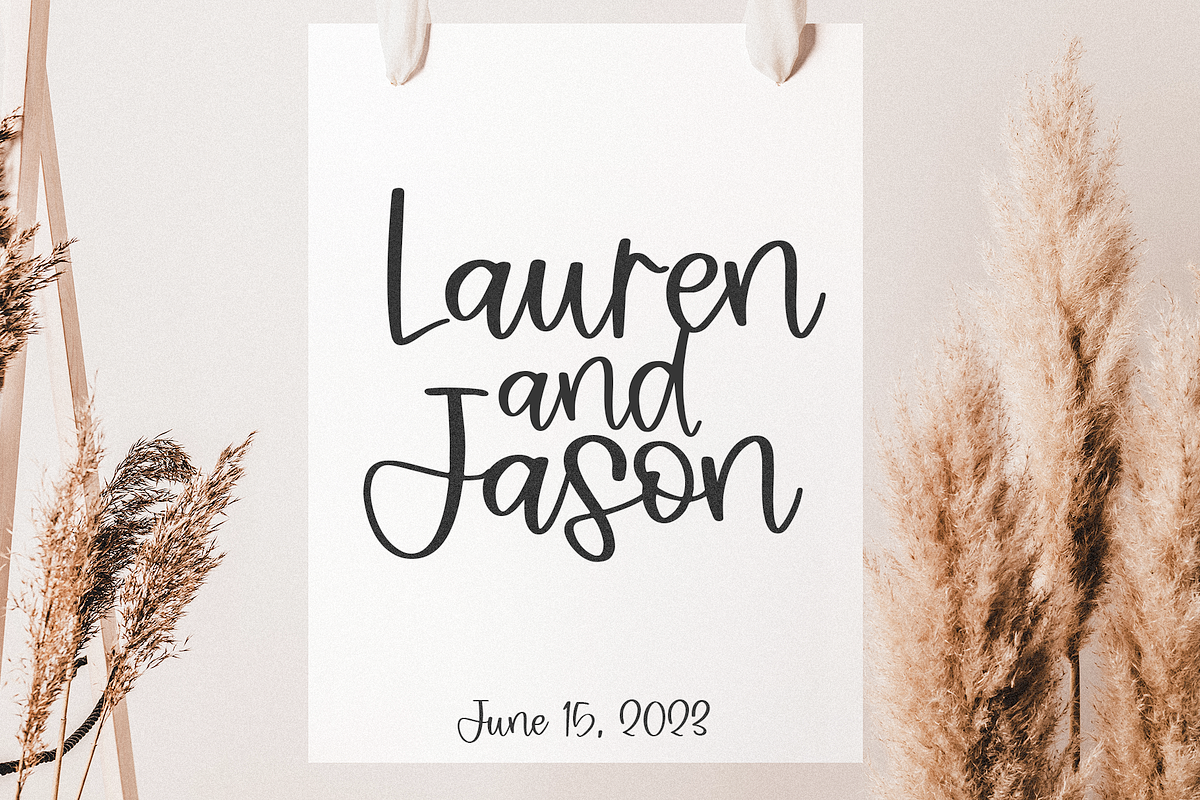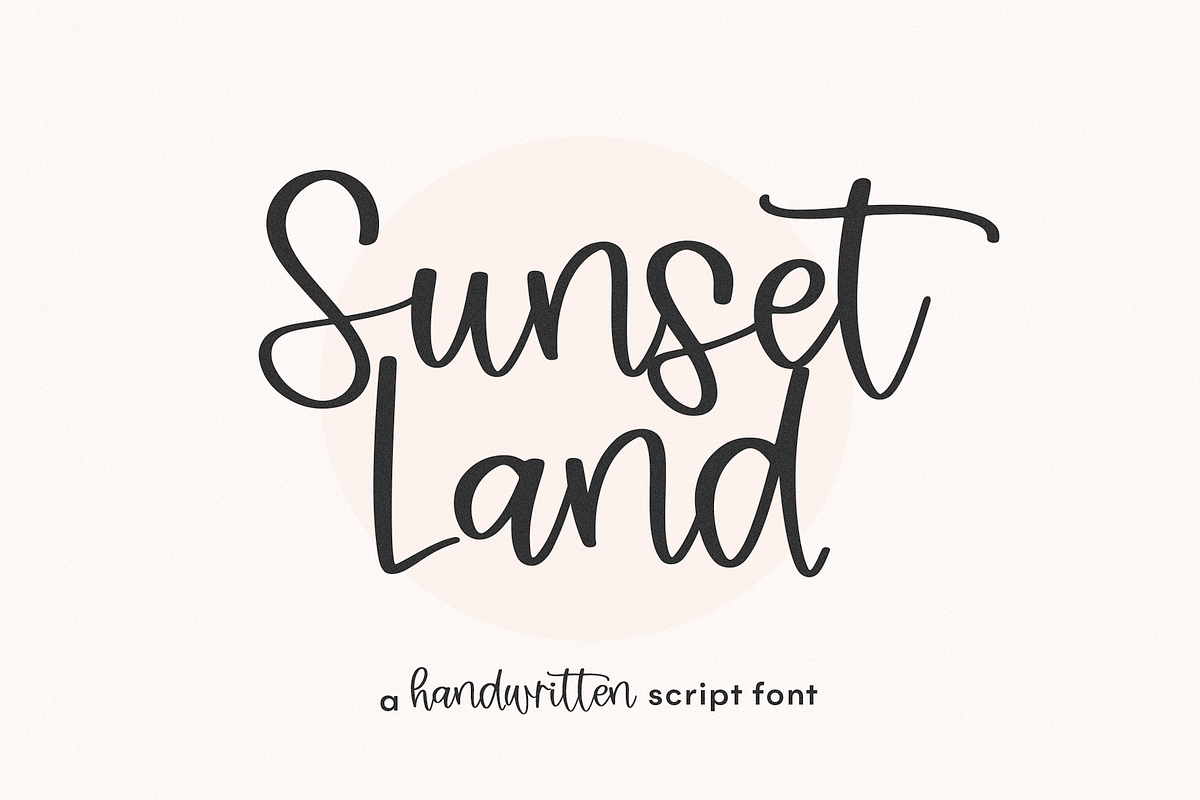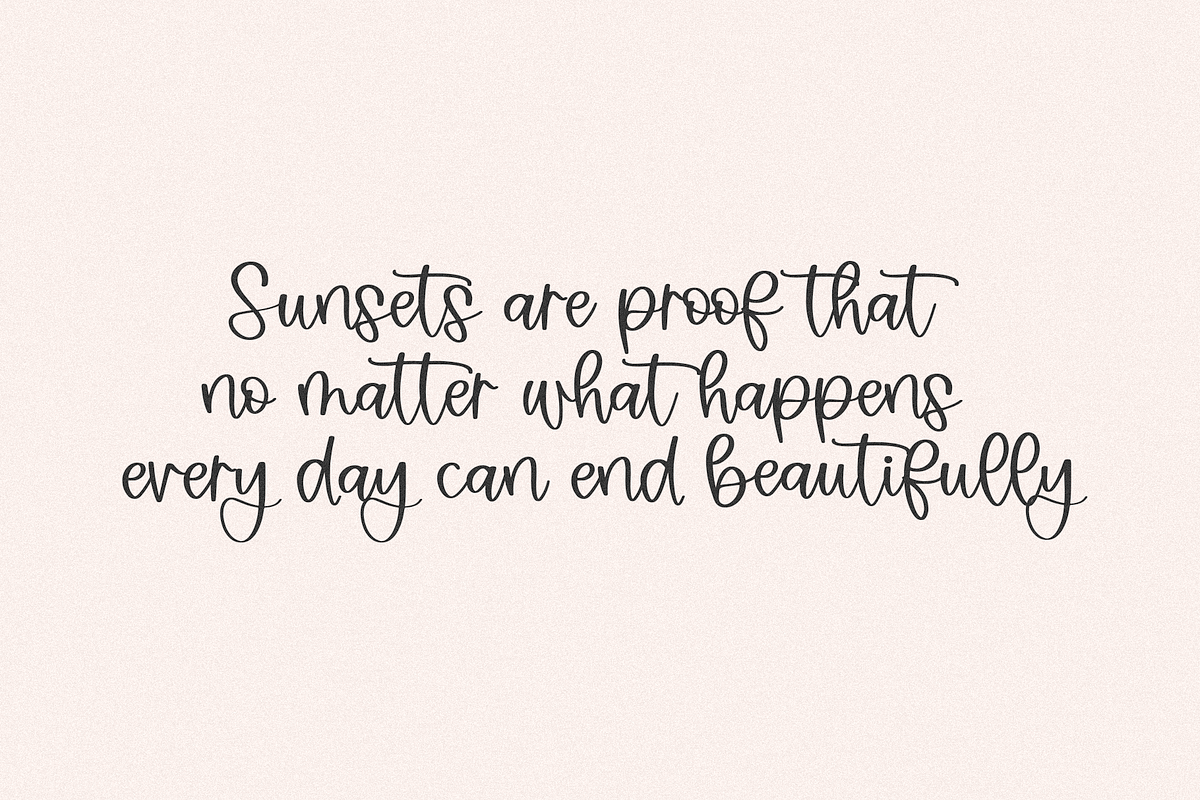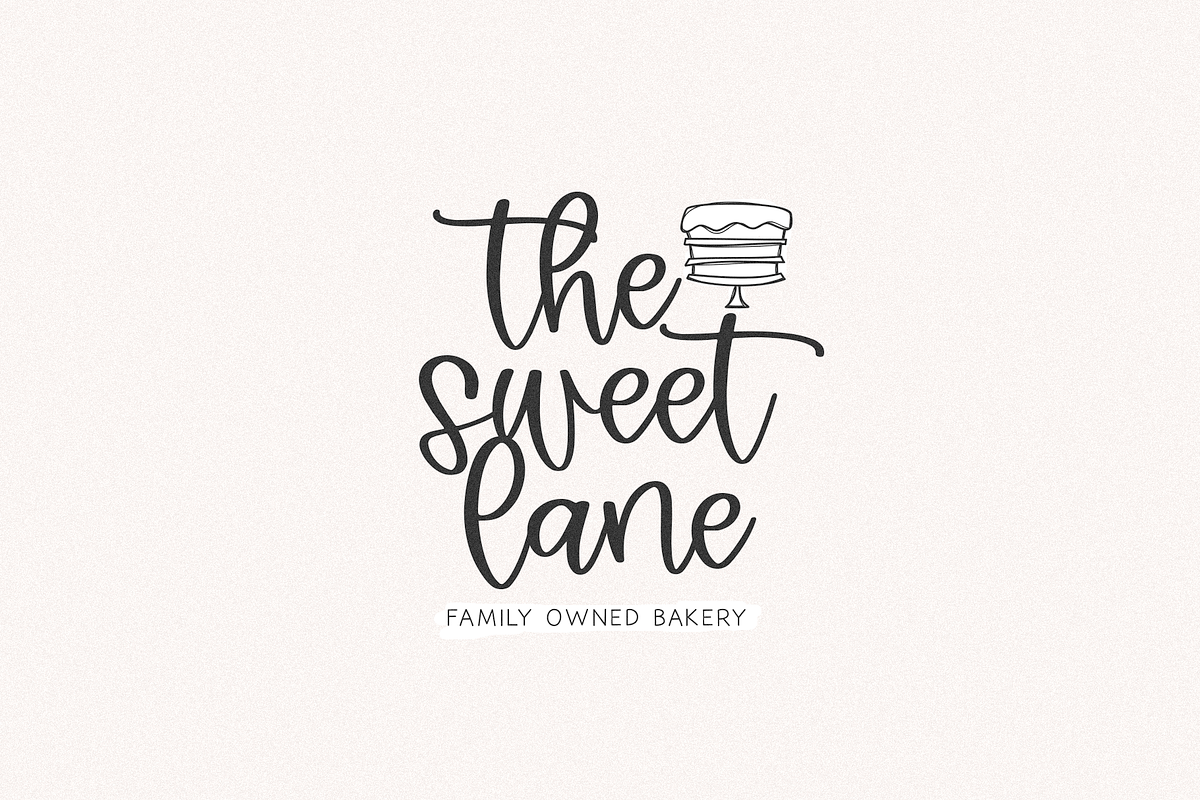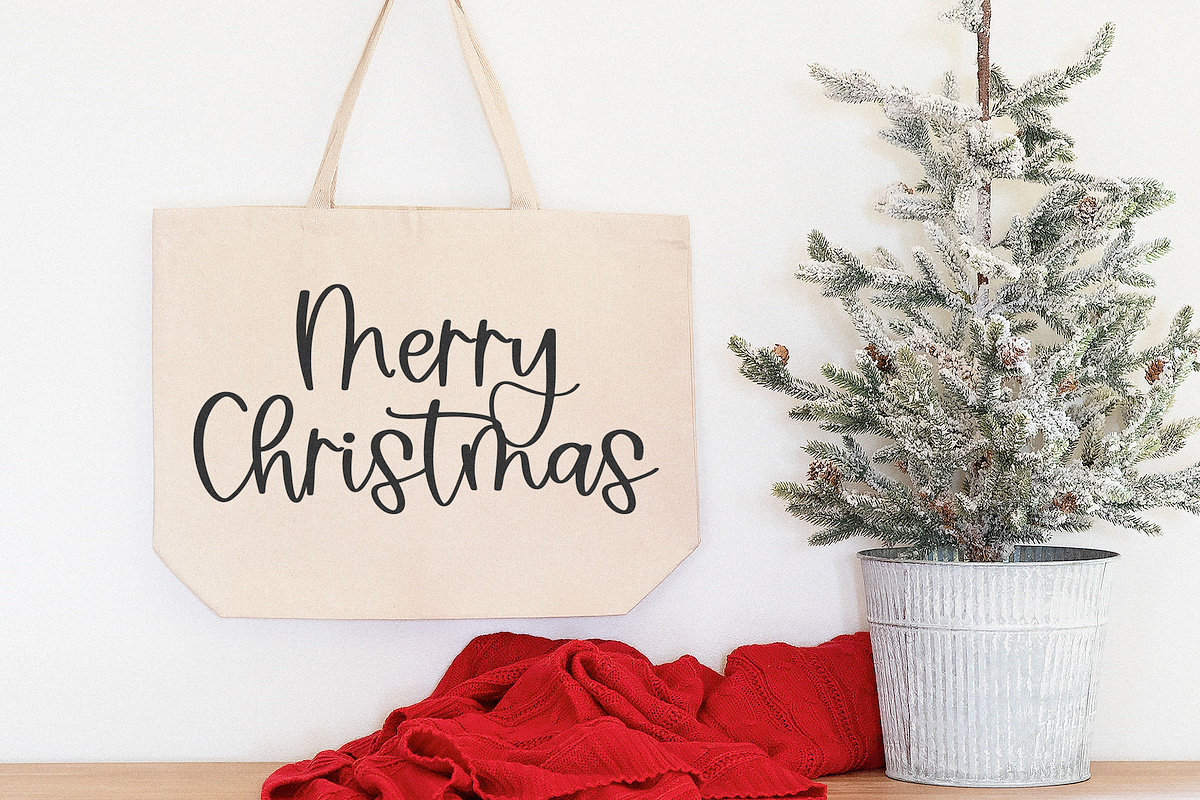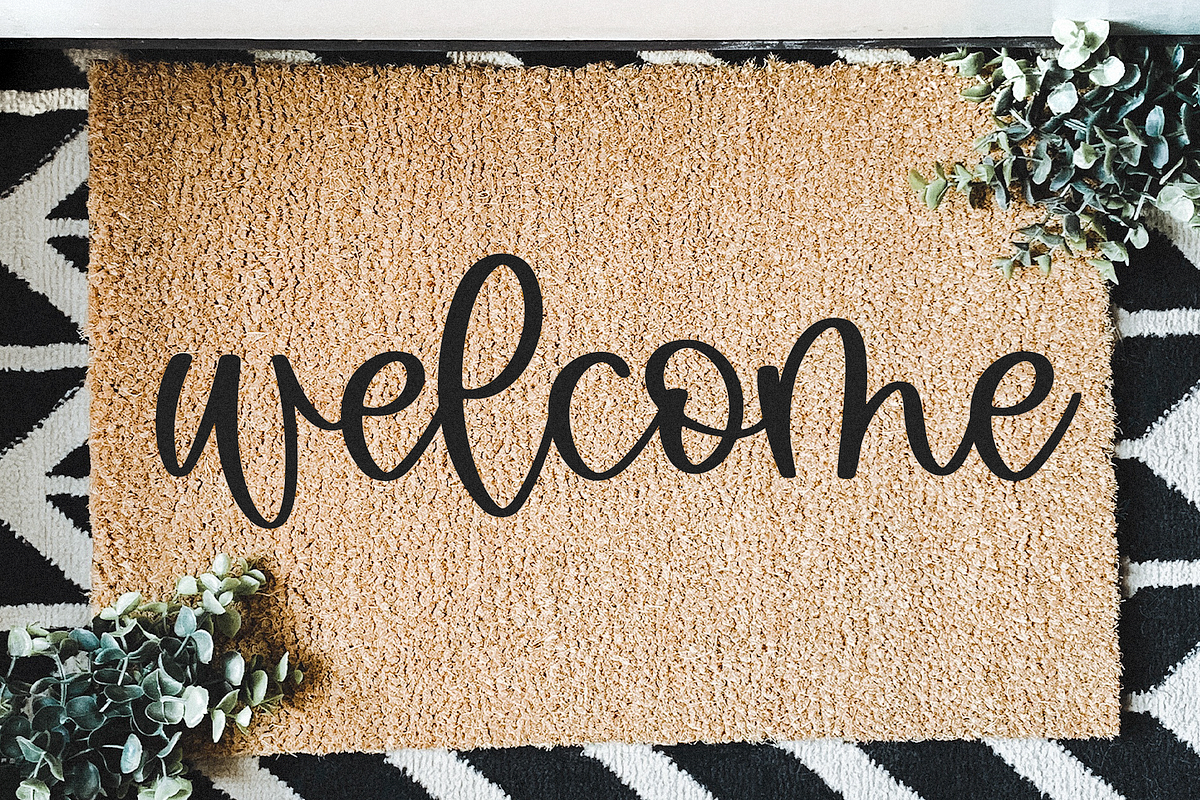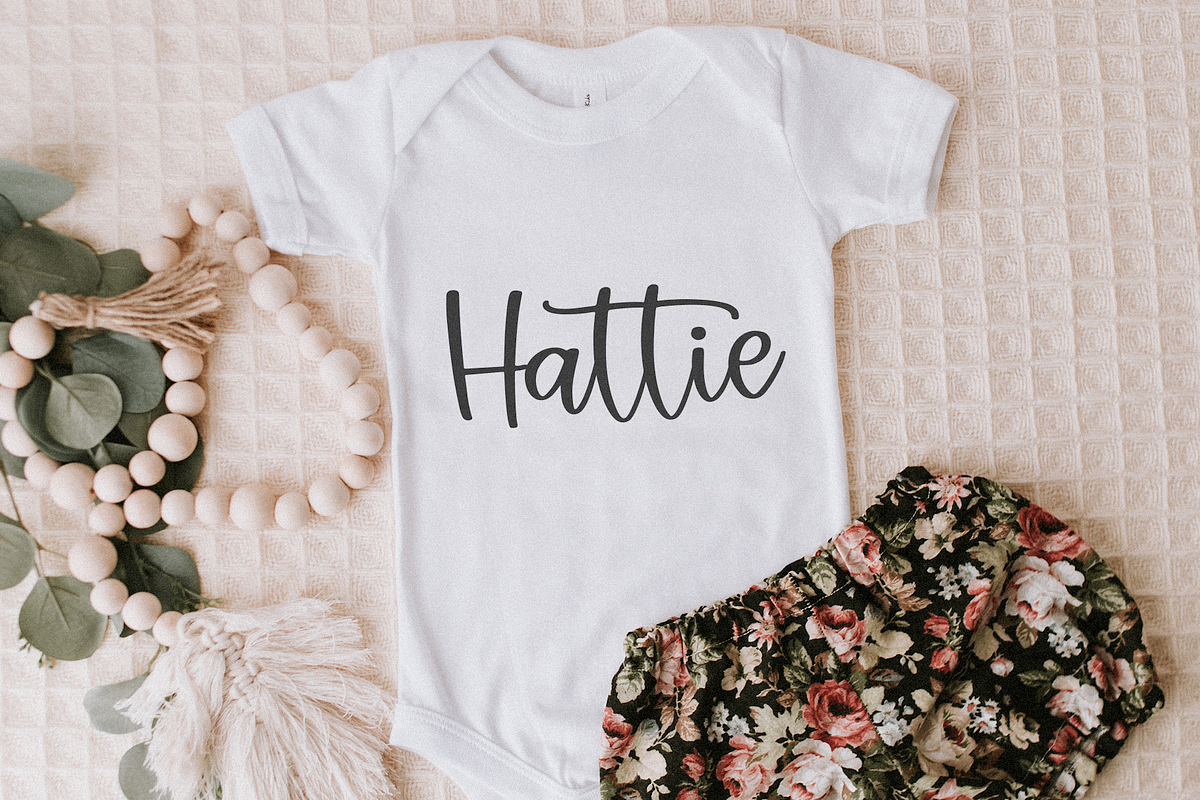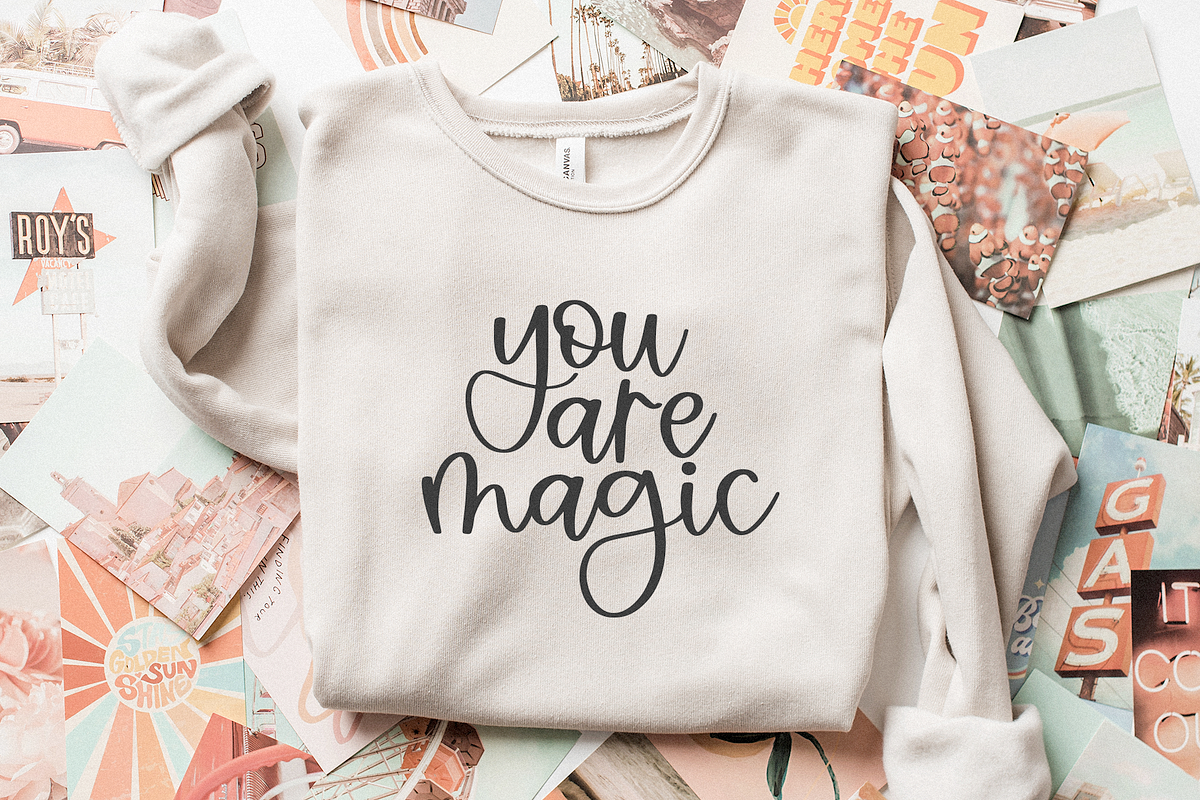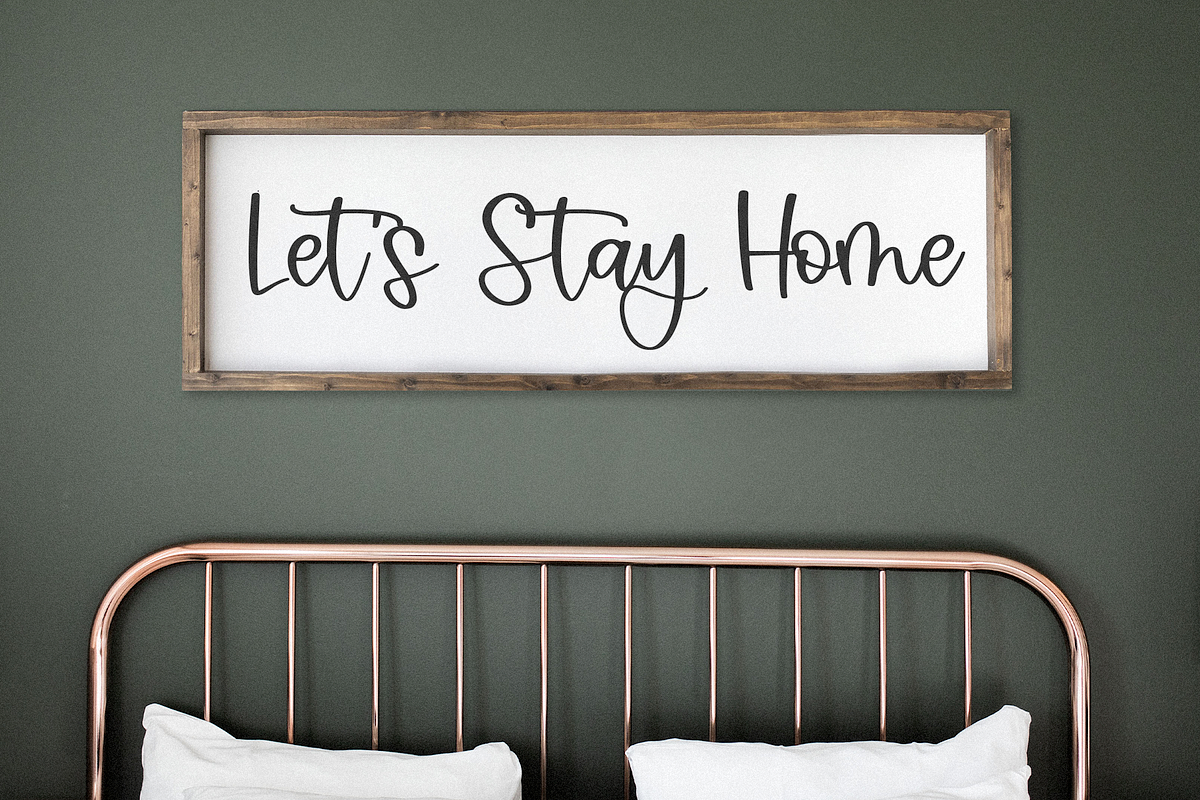
Sunset Land | Modern Script Font
Sunset Land is a handwritten script font.
This font is perfect for logos, branding, farmhouse signs, svg designs, shirts, mugs, procreate, wedding decor, invitations and more!